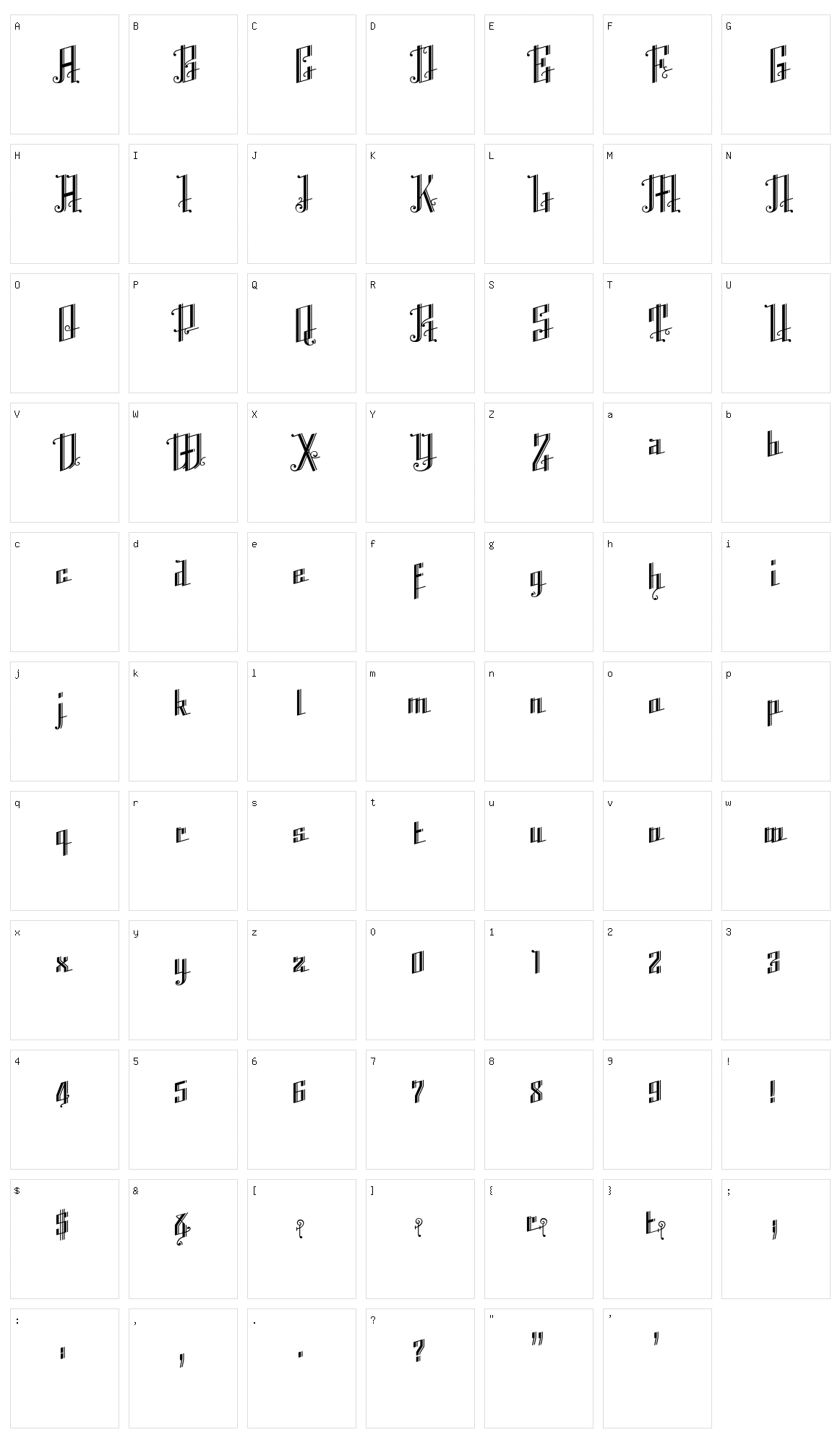
Font Notes:
The font has two end ornaments, actually only one ornament but positioned
differently, located in the:
+ right bracket ( "]" ) for lowercase letters b, c, e, o, p, s, v and w
+ left bracket ( "[" ) for the rest of the lowercase (except for "r" and
"t"), and can also be used for all uppercase
Both ornaments are off-centered for letters "r" and "t" so I included a
terminal "r" in the left brace ( "{" ) and a terminal "t" in the right brace
( "}" ) with a properly aligned ornament.